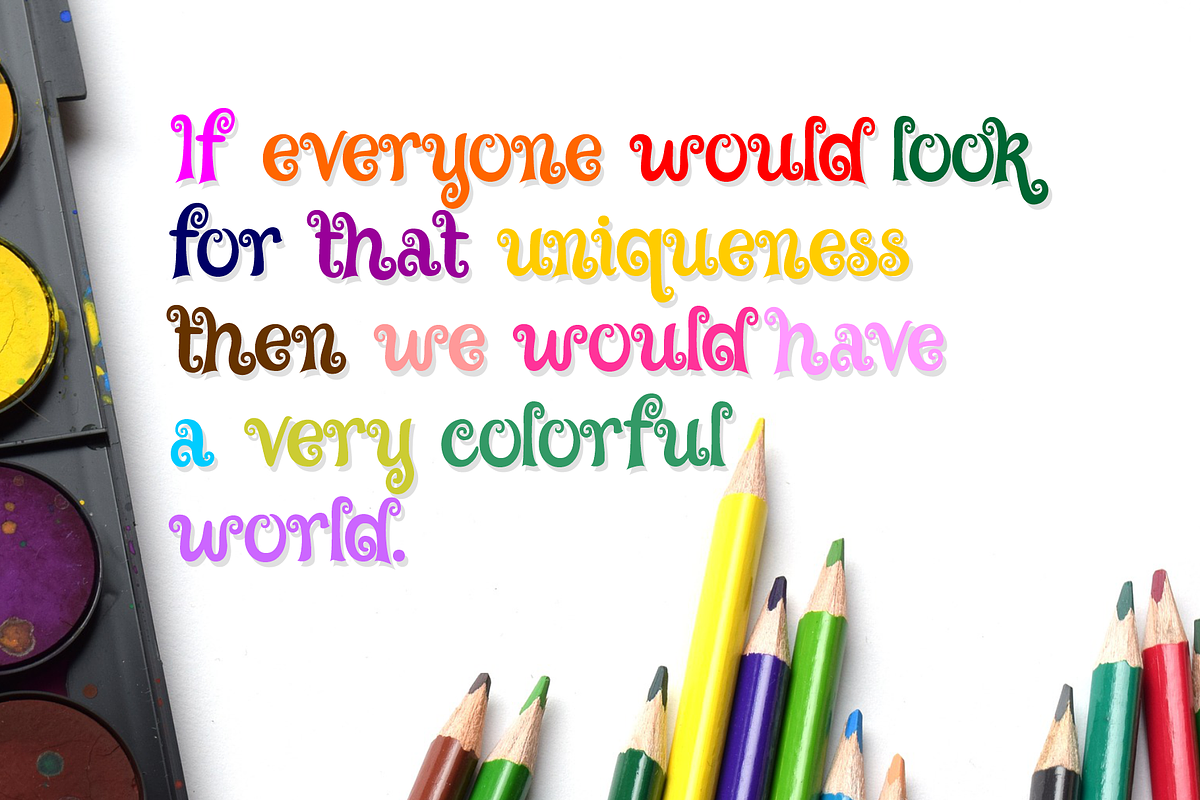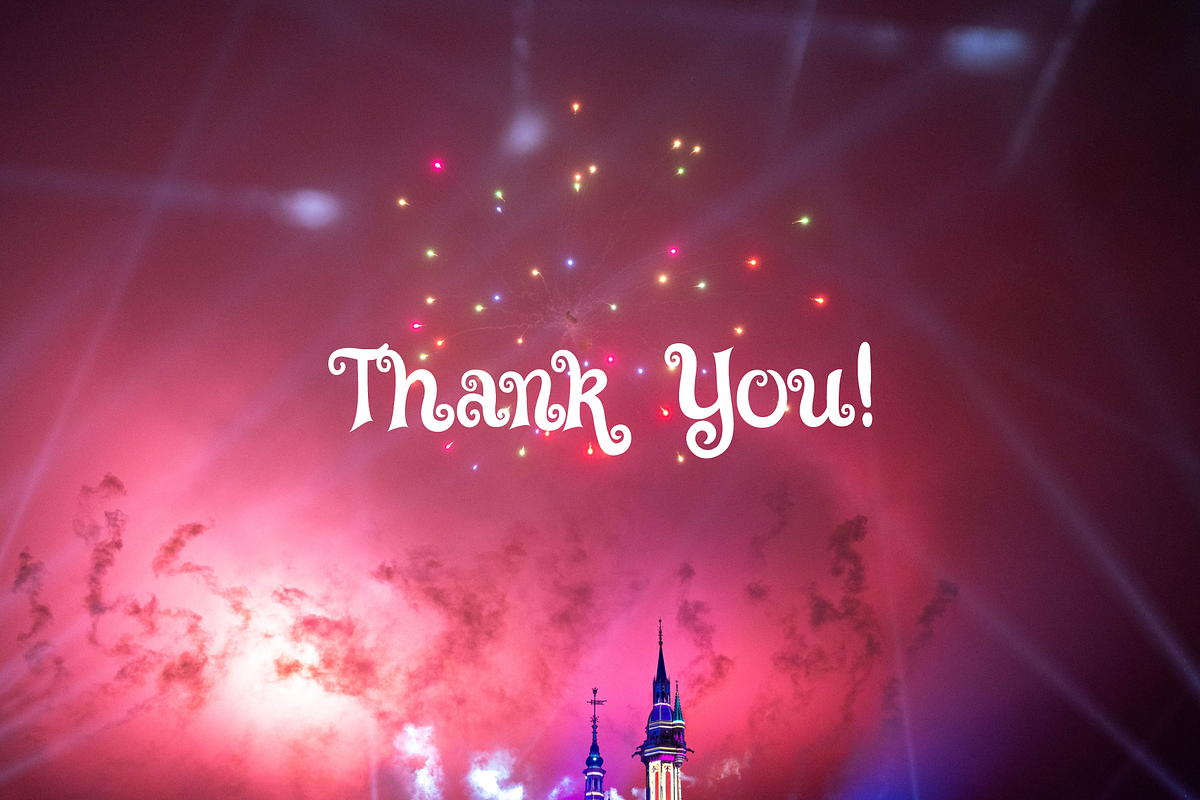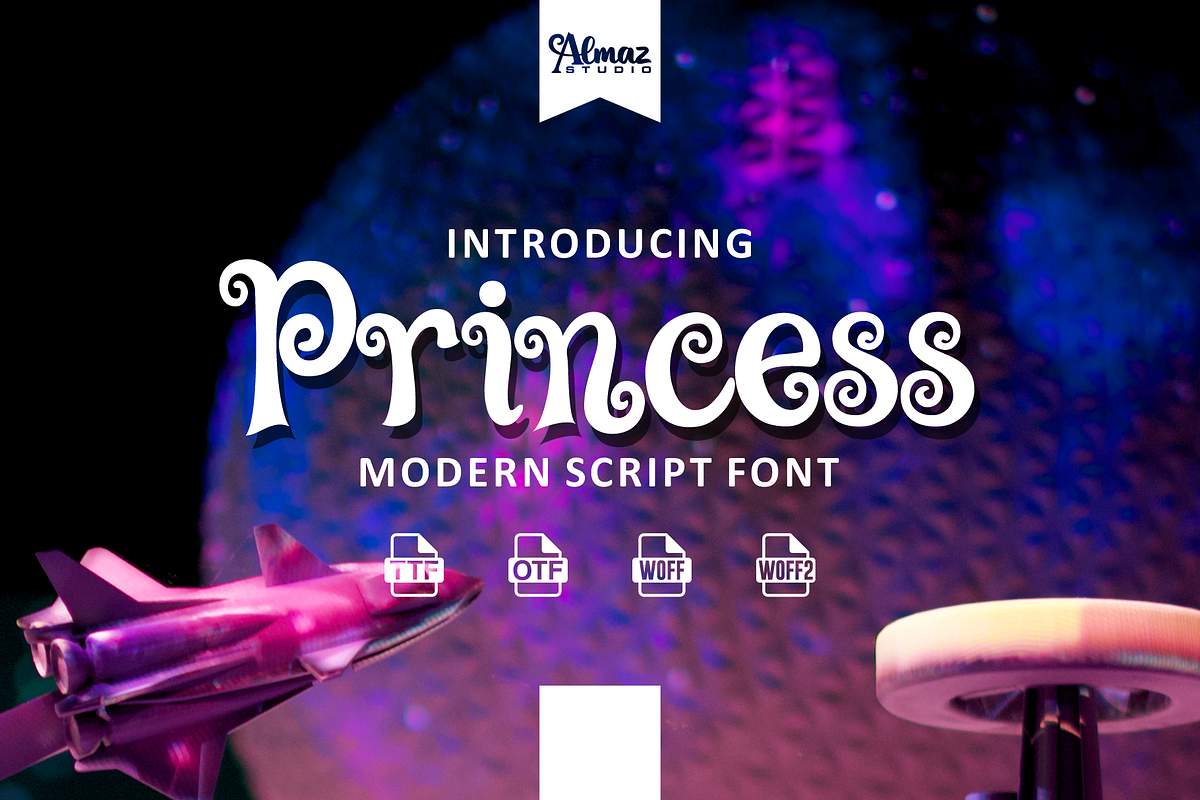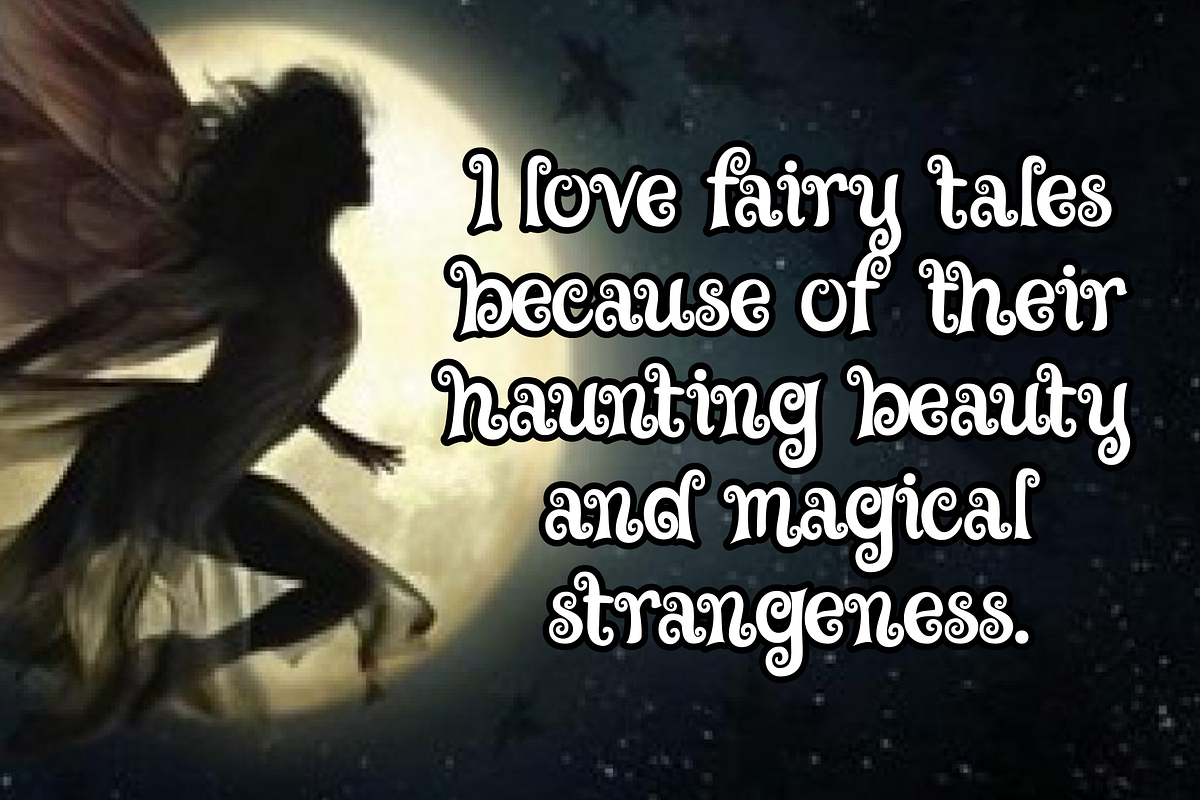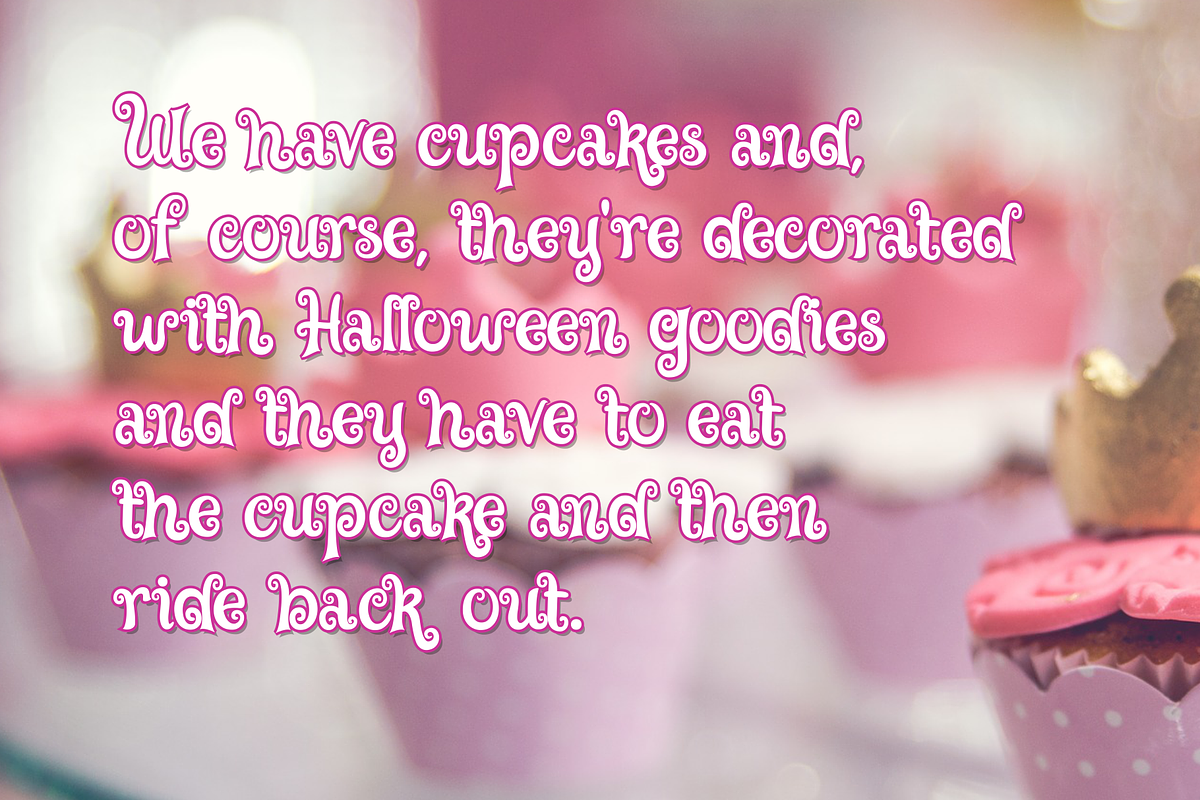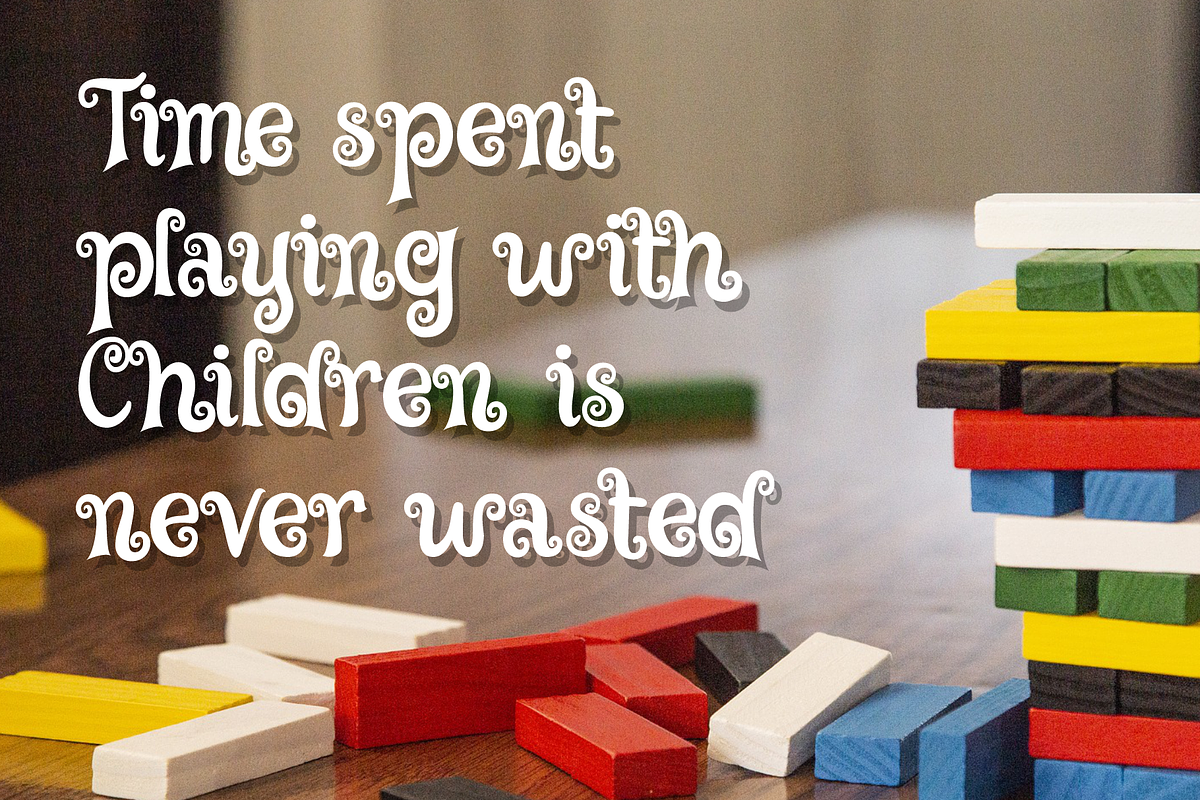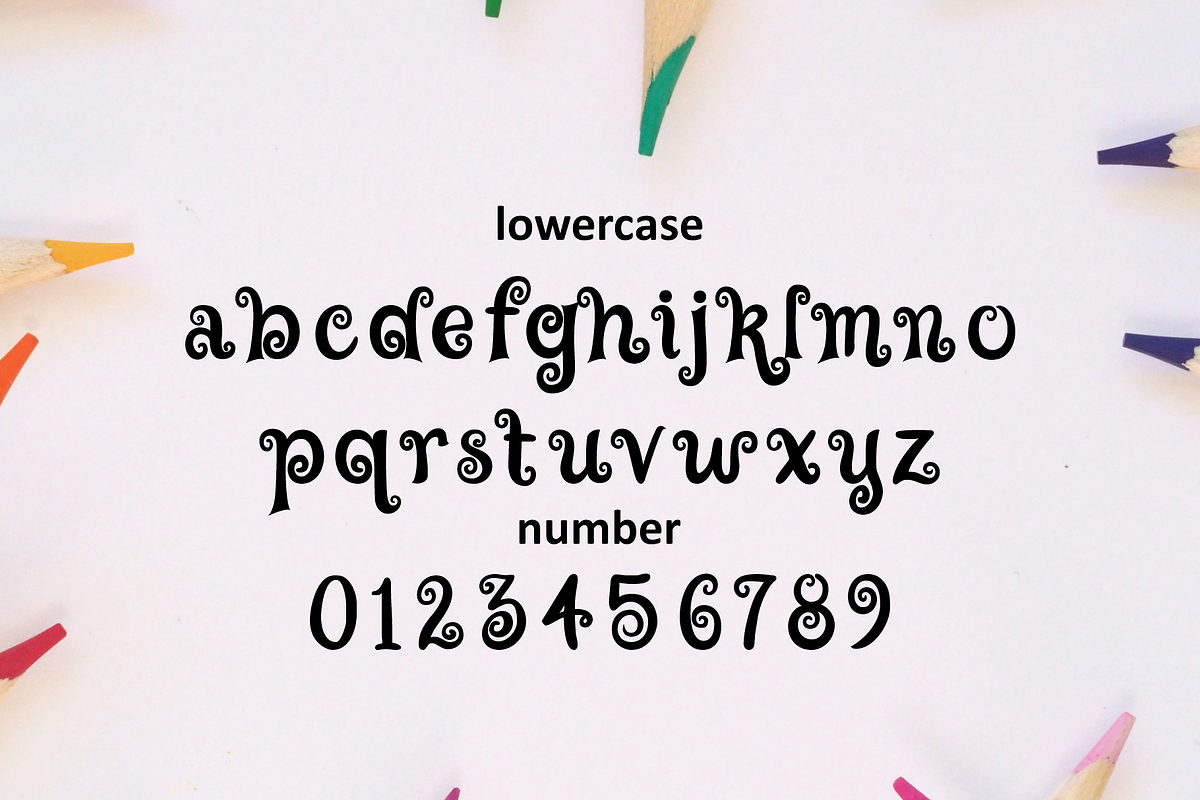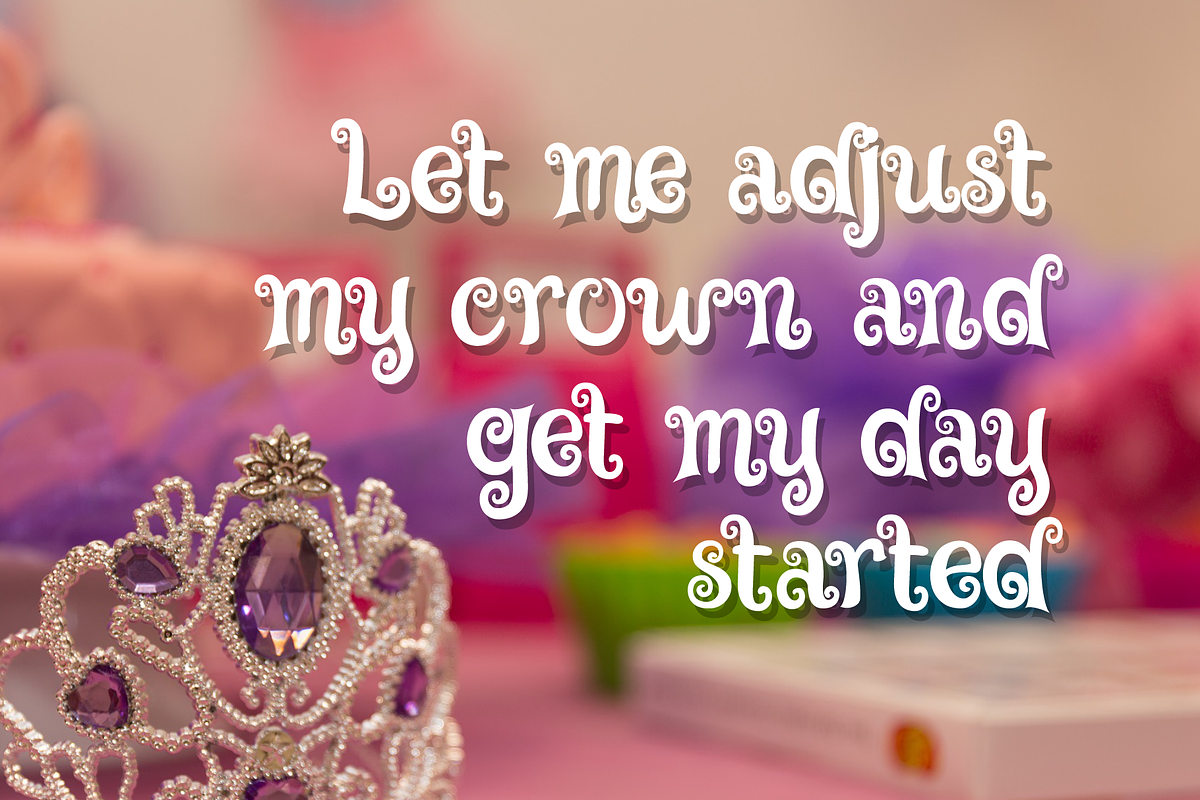
Princess
Princess is a natural and stylized display font with beautiful nature elements. This font can be used for various designs, including for invitations, product packaging, quotes, product designs, labels, watermarks, t-shirts, logos, and branding. Princess is a cute and lovely display font featuring bold letters. It will add a romantic and playful feel to any arts and crafts project! Princess is a font that will make your design looks modern, unique and fun. Perfect for playful kids font with cartoon style. This font is specially crafted for children, Kids, Boys, Kindergarten, Birthday, and Comic purposes. Princess font has a unique glyph and fun style.